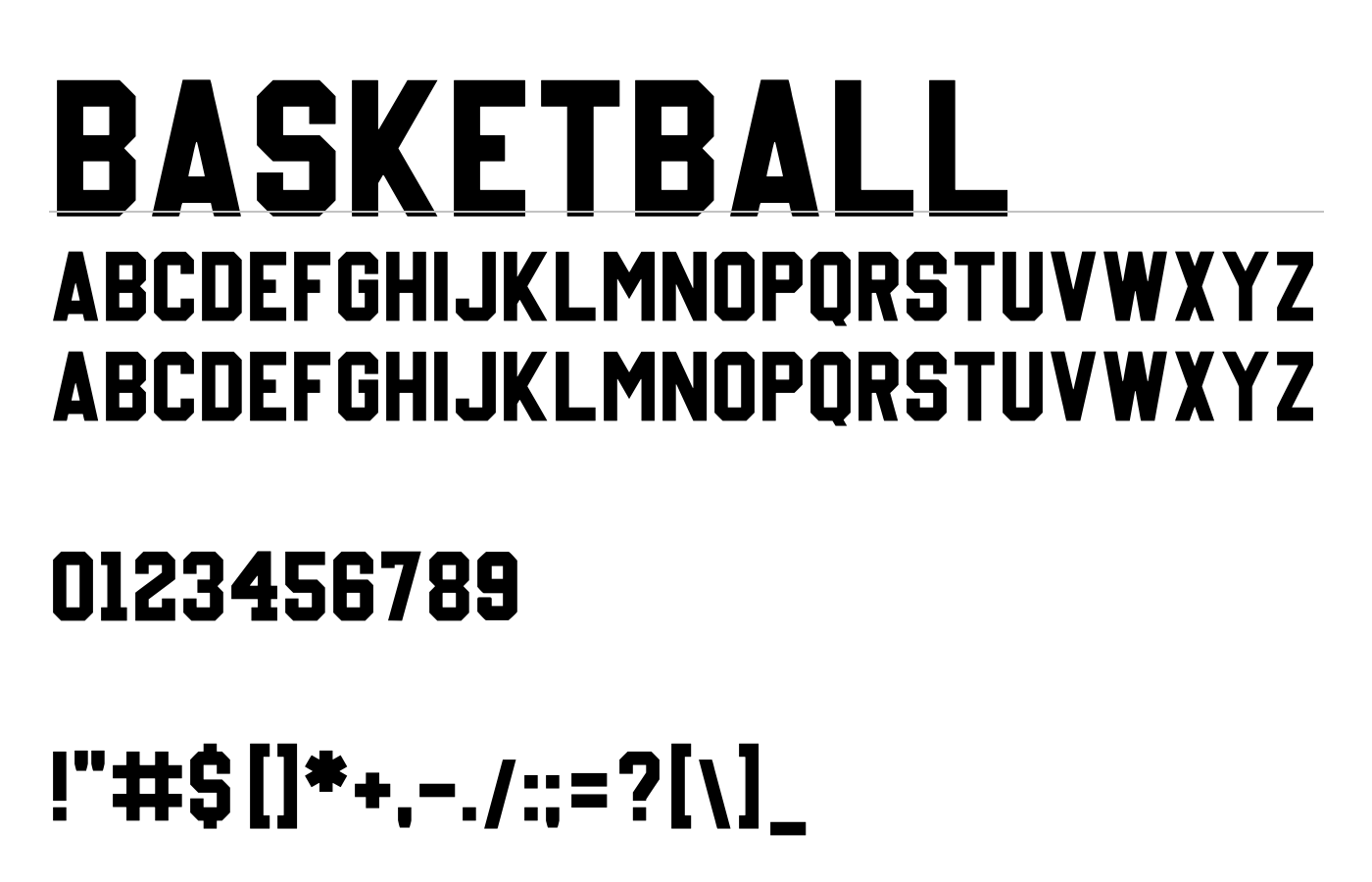
Basketball Font is a bold, condensed sans serif typeface with a strong, geometric structure and sharp edges that evoke a sporty, energetic vibe. Its all-caps design, high x-height, and uniform stroke weight make it perfect for impactful headlines, logos, and branding in athletic or dynamic contexts where a powerful and confident impression is needed. This font works especially well in sports-related designs, posters, and packaging due to its clear legibility and modern, no-nonsense style.
Basketball Font